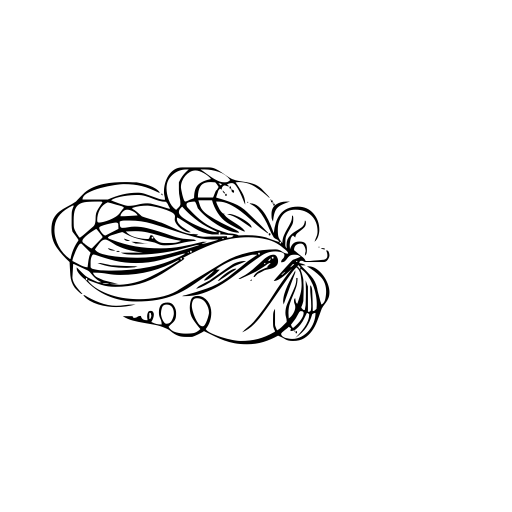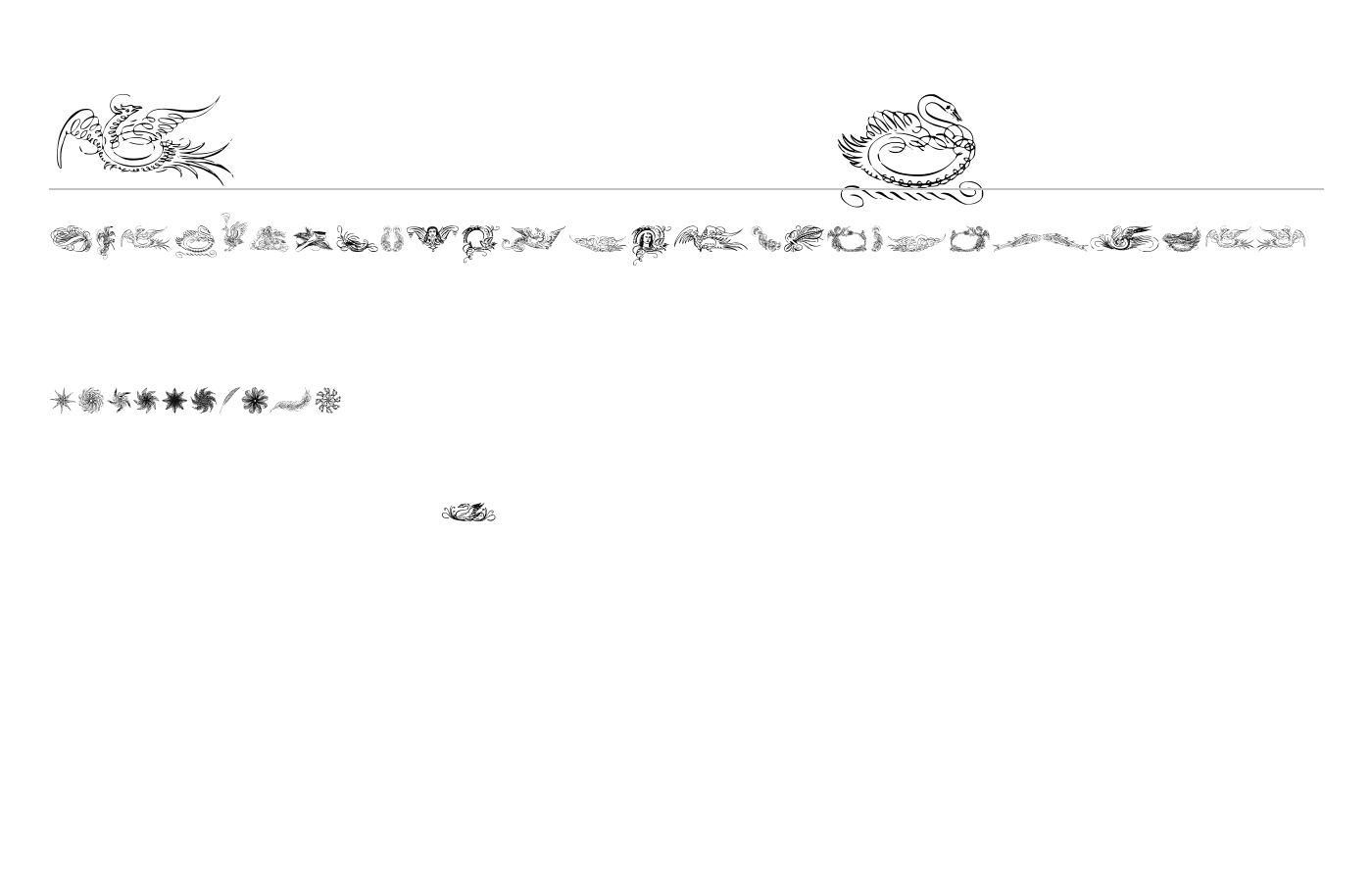
CaligrafiaDivina Font is an ornate decorative typeface featuring intricate, hand-drawn illustrations inspired by mythical creatures and floral motifs rather than traditional letters. This artistic and highly detailed font conveys a vintage, elegant, and whimsical mood, making it ideal for luxurious branding, elaborate invitations, or artistic projects seeking a unique, ornamental touch rather than body text or straightforward readability. Its delicate, fine lines and complex shapes are perfect for decorative accents and special design elements where a sophisticated, mystical aesthetic is desired.
CaligrafiaDivina Font
| Designer | Iza W |